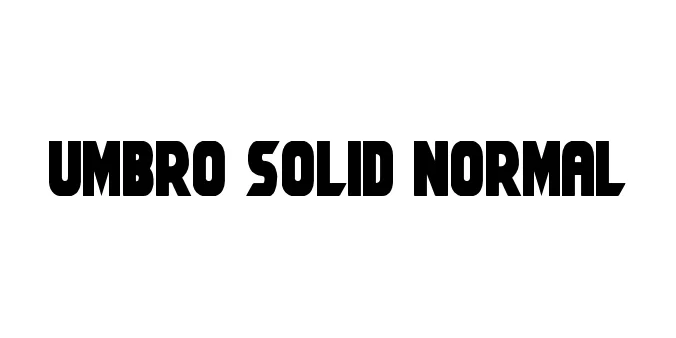
Umbro Solid Normal
Designed by Umbro Design Team
| Category | Sport / Sans Serif |
| Designer | Umbro Design Team |
Umbro Solid Normal is an iconic athletic typeface deeply rooted in the history of British sportswear and international football culture. Originally developed for use on Umbro kits, this font became synonymous with the legendary jerseys of the 1990s and early 2000s. Its design features a solid, blocky structure with sharp terminals and high-impact geometry, ensuring maximum visibility for player names and numbers during live broadcasts and stadium events.
Beyond its functional origins on the pitch, the typeface has transitioned into a cultural symbol of retro sportswear aesthetics. Its bold presence and clean lines make it a favorite for designers looking to capture a sense of nostalgia, strength, and professional athleticism. Whether used for contemporary streetwear branding or digital sports media, Umbro Solid Normal remains a definitive example of sport-focused typography that balances tradition with functional clarity.
Umbro Solid Normal Best Uses
Ideal for numbering and lettering on soccer jerseys and team uniforms.
Perfect for fitness centers, gym logos, and lifestyle sports brands.
Effective for high-impact headlines on matchday posters and social media graphics.
Used in fashion design to create a vintage or 'block' aesthetic for hoodies and tees.